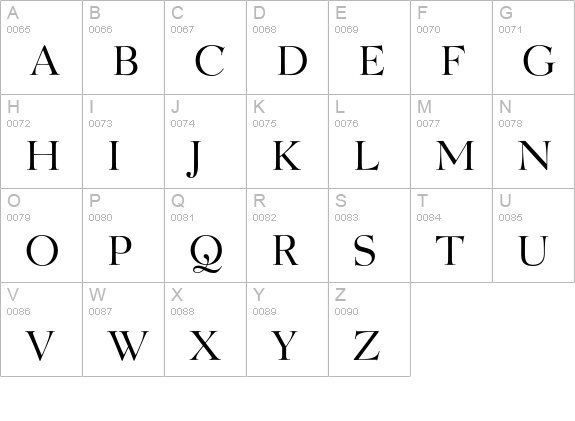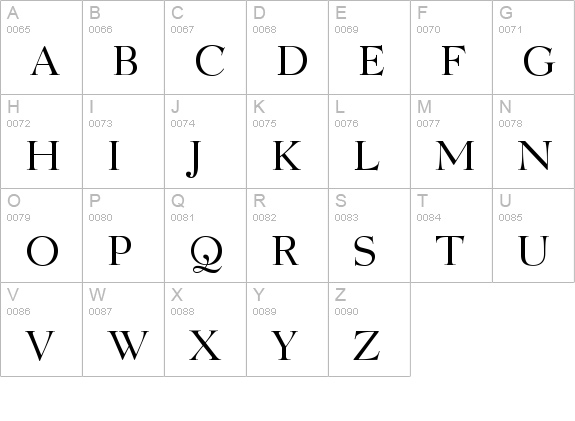
Belucian-Book is a comfortable, highly readable variant in the Belucian typeface family \xE2\x80\x94 well suited to long-form body text, articles, and editorial content.
Belucian-Book font is a modern and elegant typeface that exudes sophistication and charm. Its clean lines and stylish curves make it the perfect choice for a wide range of design projects, from branding and marketing materials to invitations and website headers. The font's timeless appeal and versatility make it a must-have for any designer looking to add a touch of class to their work. The best part is that Belucian-Book font is completely free to download at FontsMarket.com. This means you can easily access this high-quality font without any cost, making it an excellent option for both personal and commercial use. Don't miss out on the opportunity to enhance your designs with the beauty of Belucian-Book font – download it today and elevate your projects to the next level.